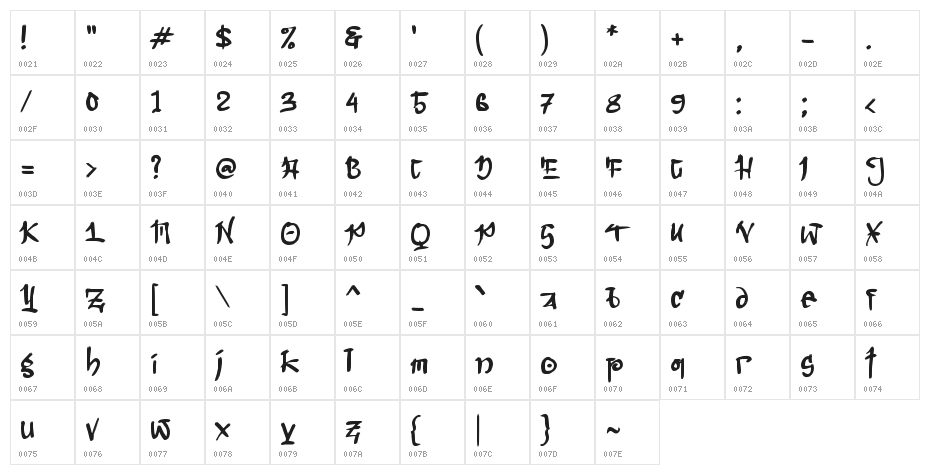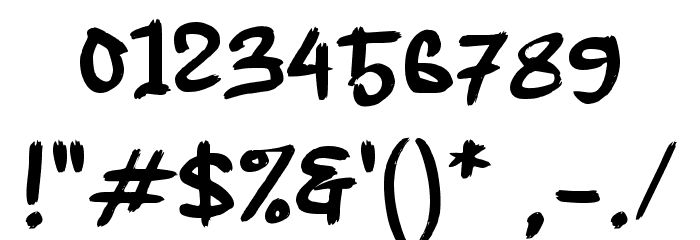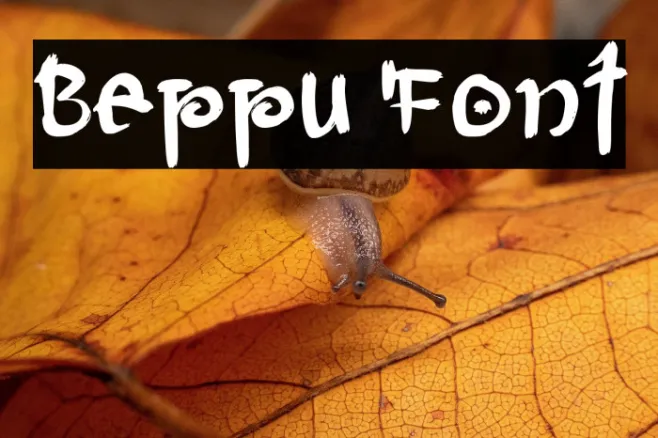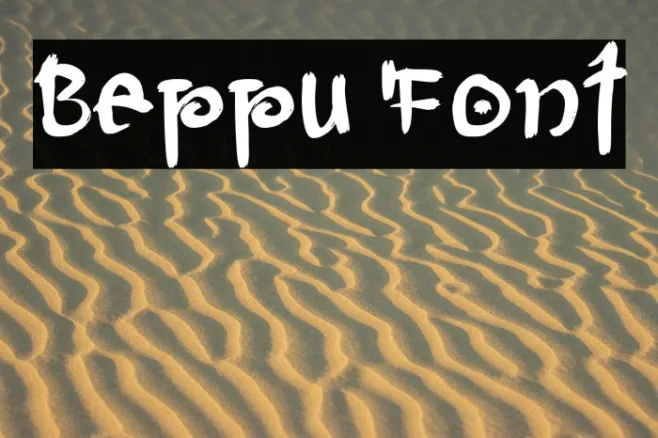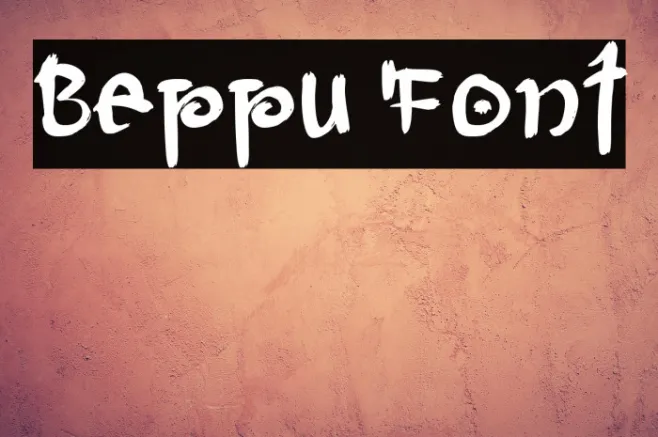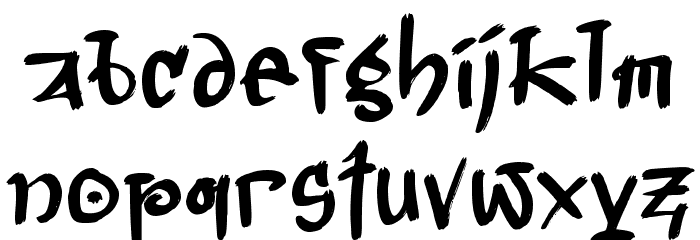
Beppu Font
Beppu Description
This font features a bold, expressive style with a hand-drawn appearance, reminiscent of brush strokes. The characters are dynamic and slightly irregular, giving a sense of movement and energy. The uppercase letters are particularly striking, with exaggerated curves and angles, while the lowercase letters maintain a consistent flow. Numbers and special characters are equally bold, ensuring they stand out. The overall design is both artistic and impactful, making it suitable for projects that require a strong visual presence.